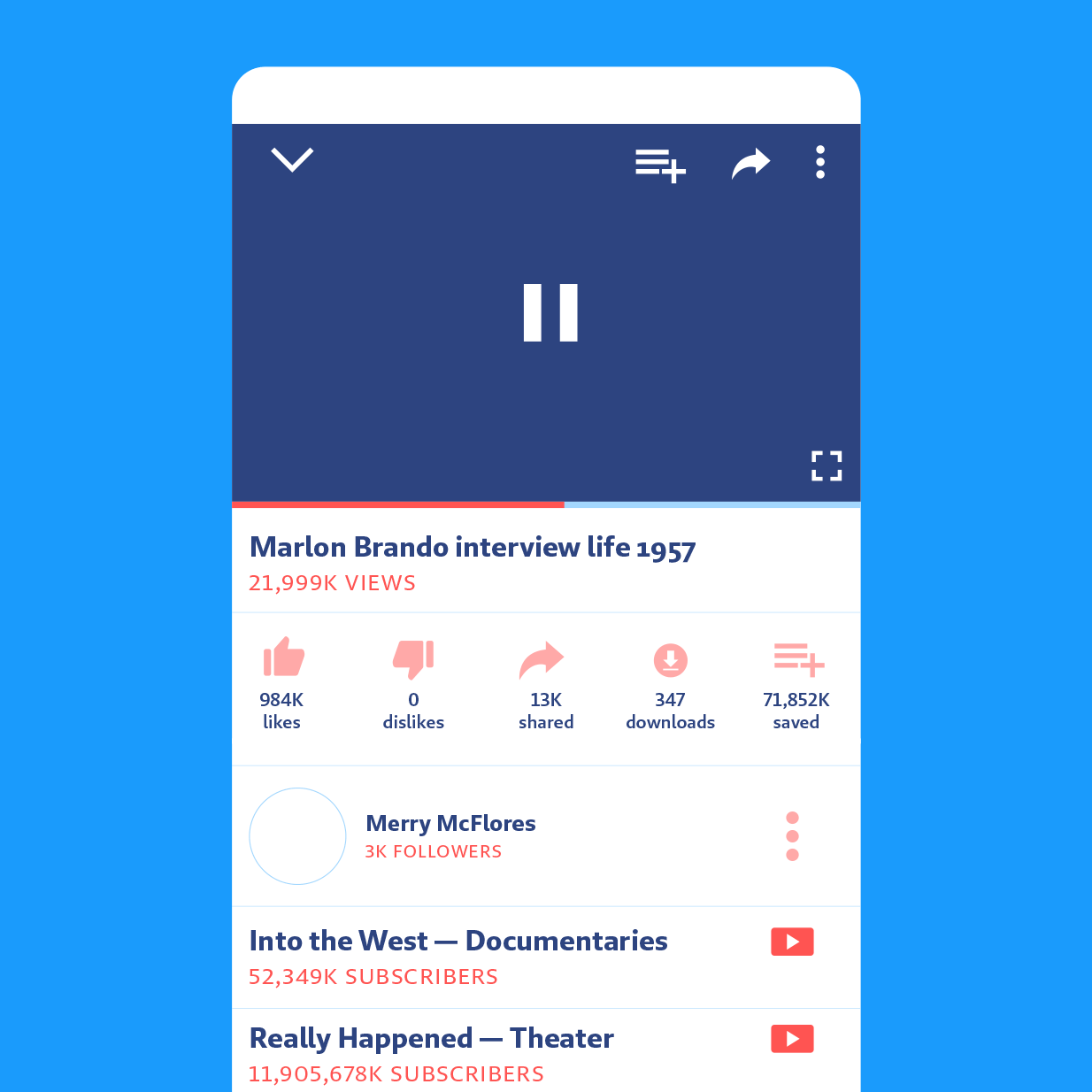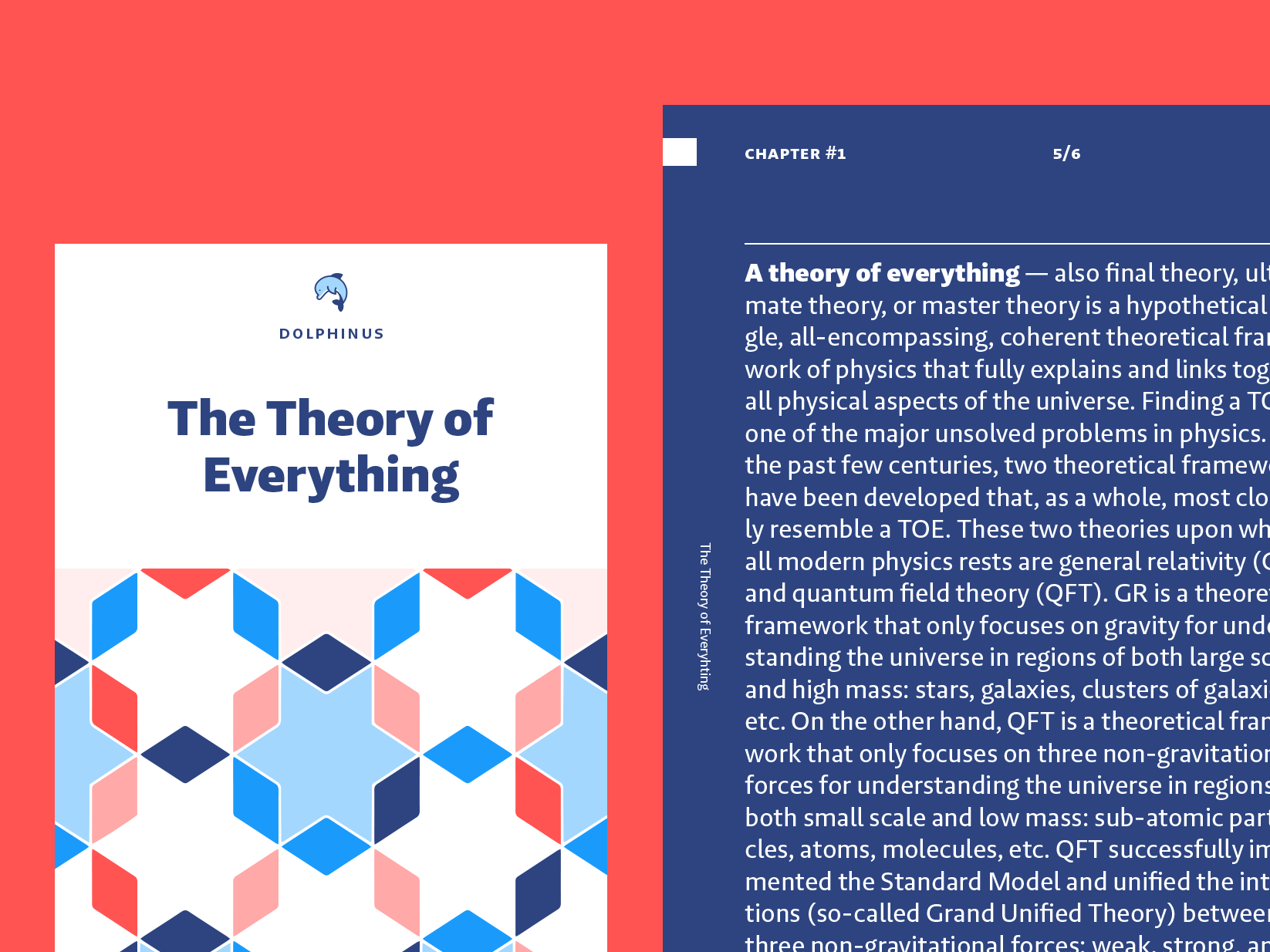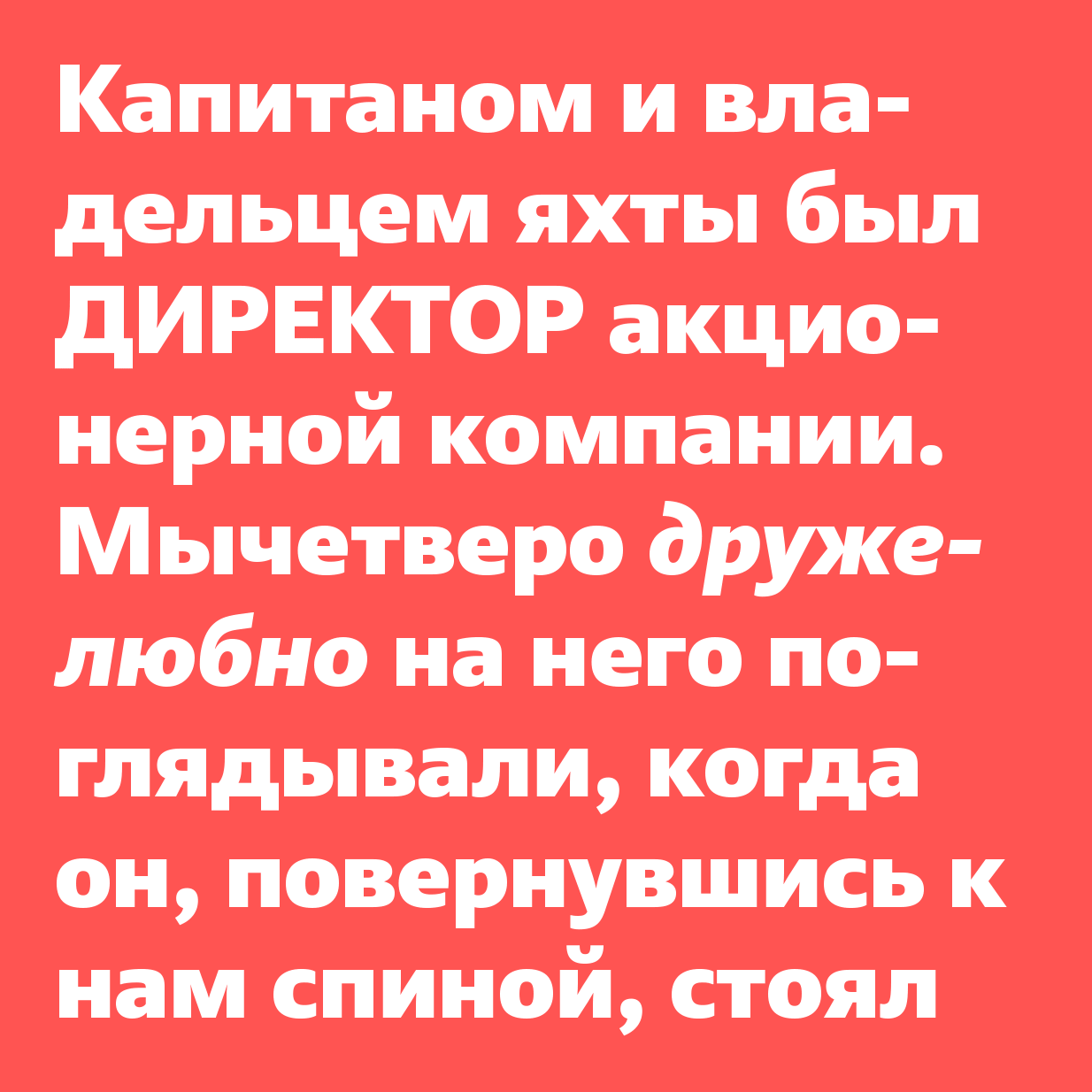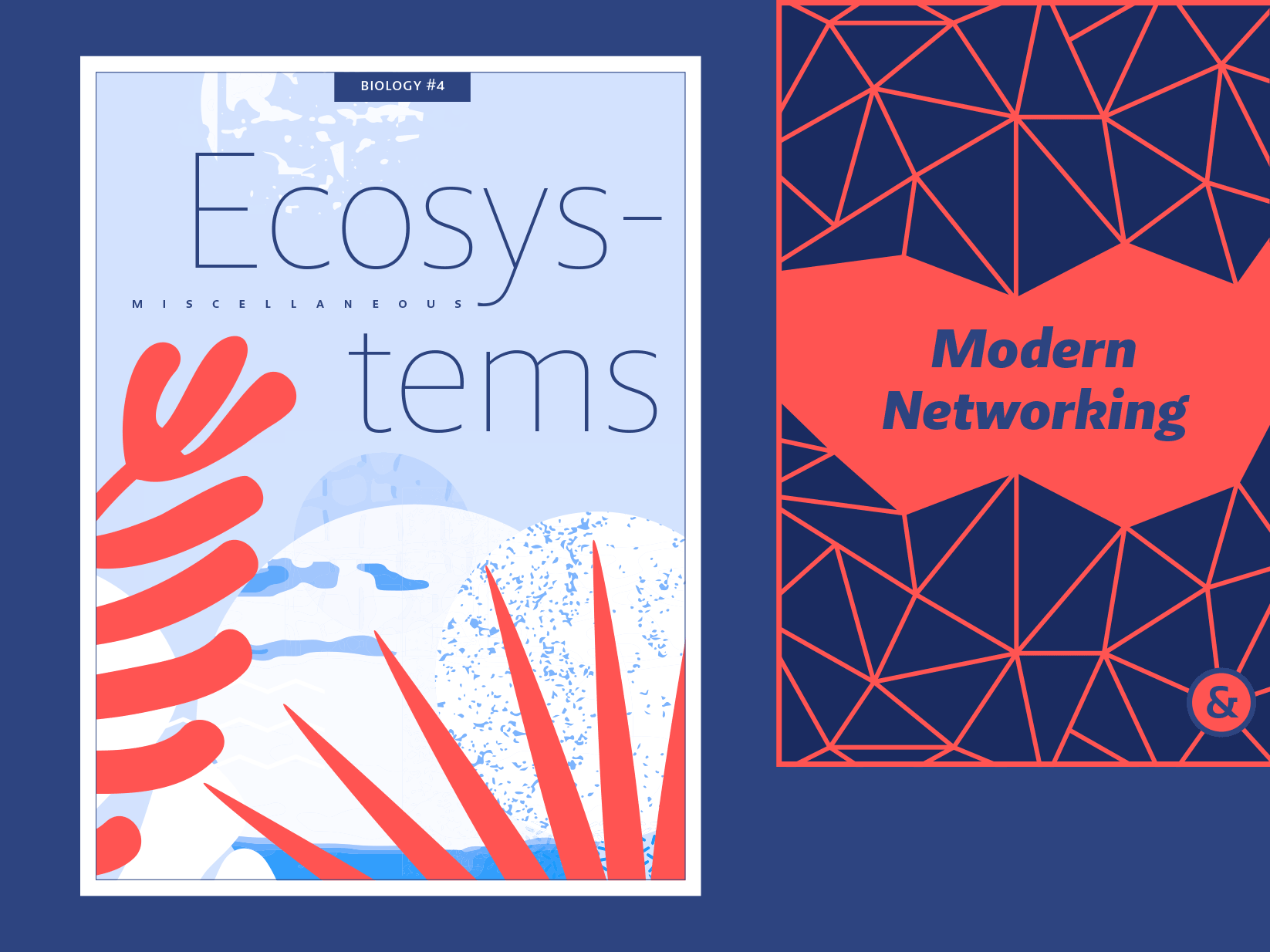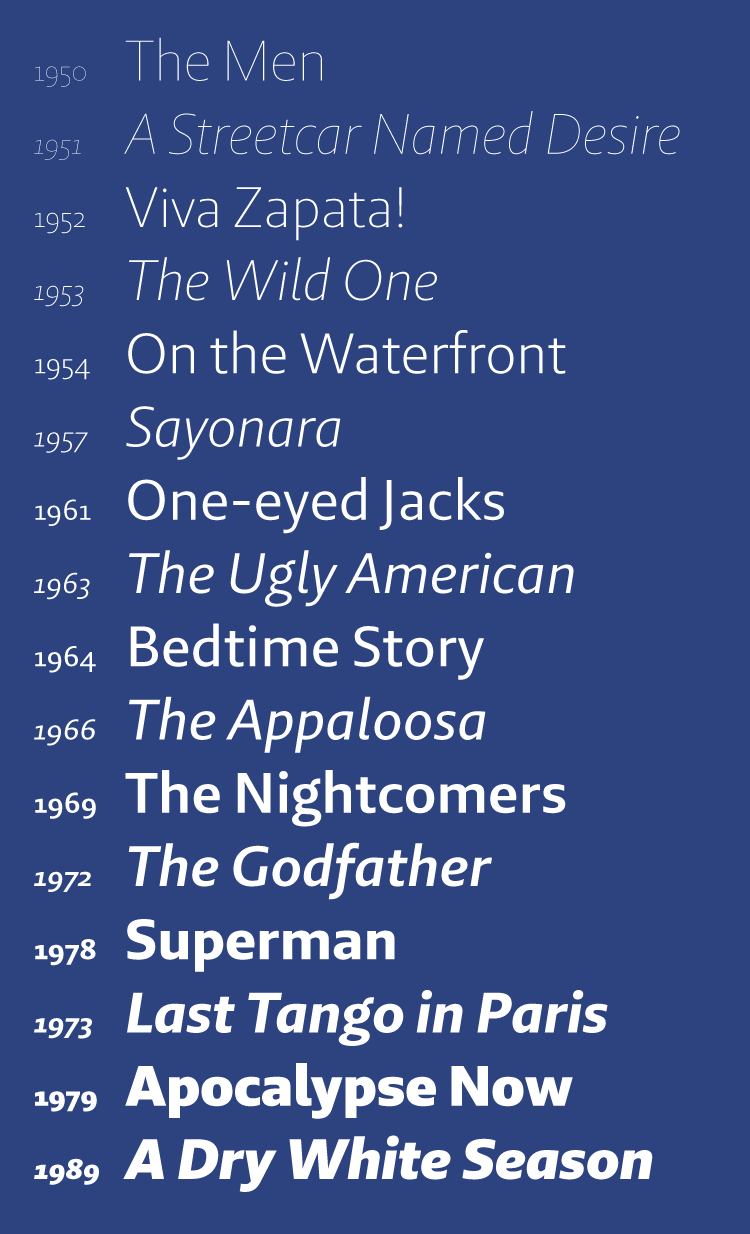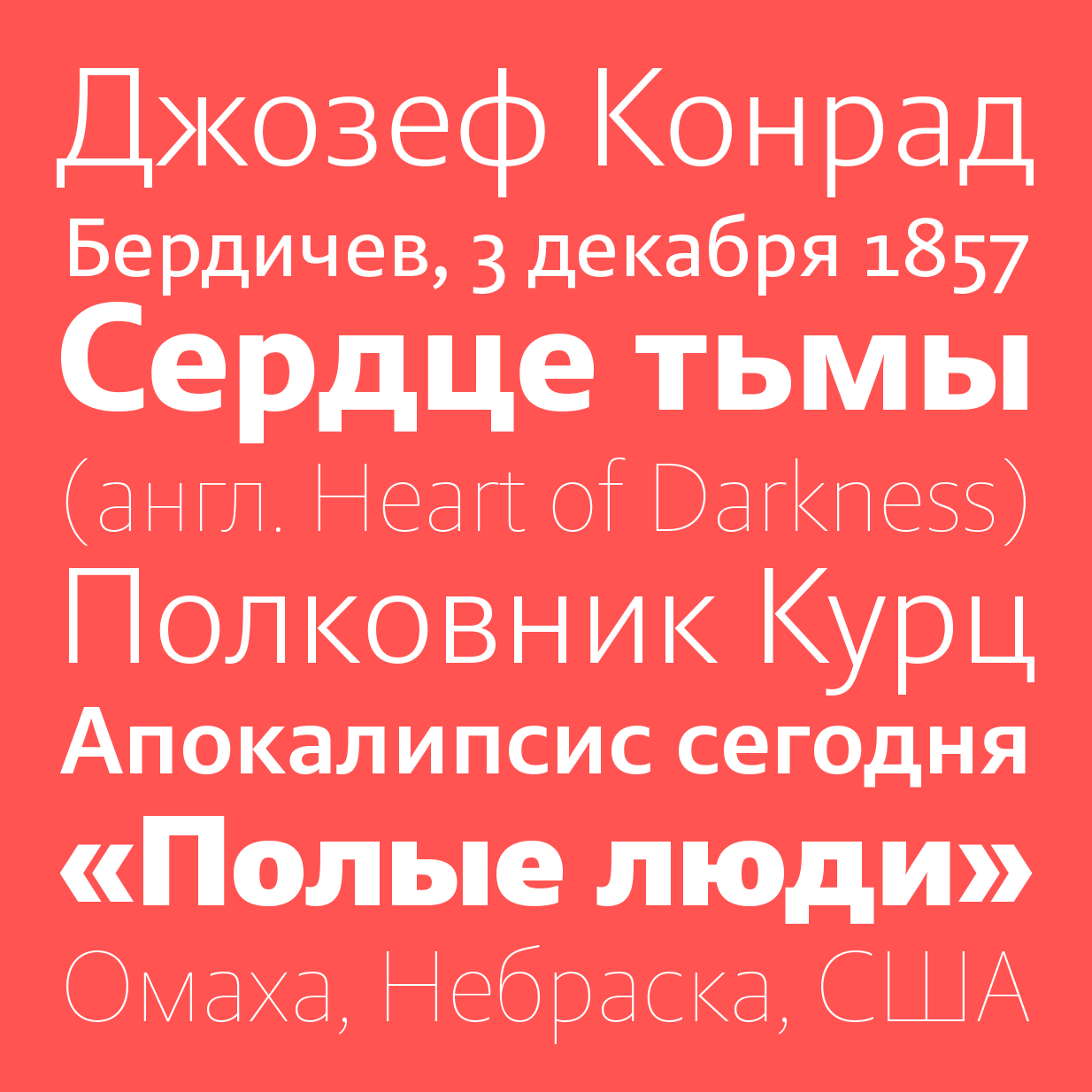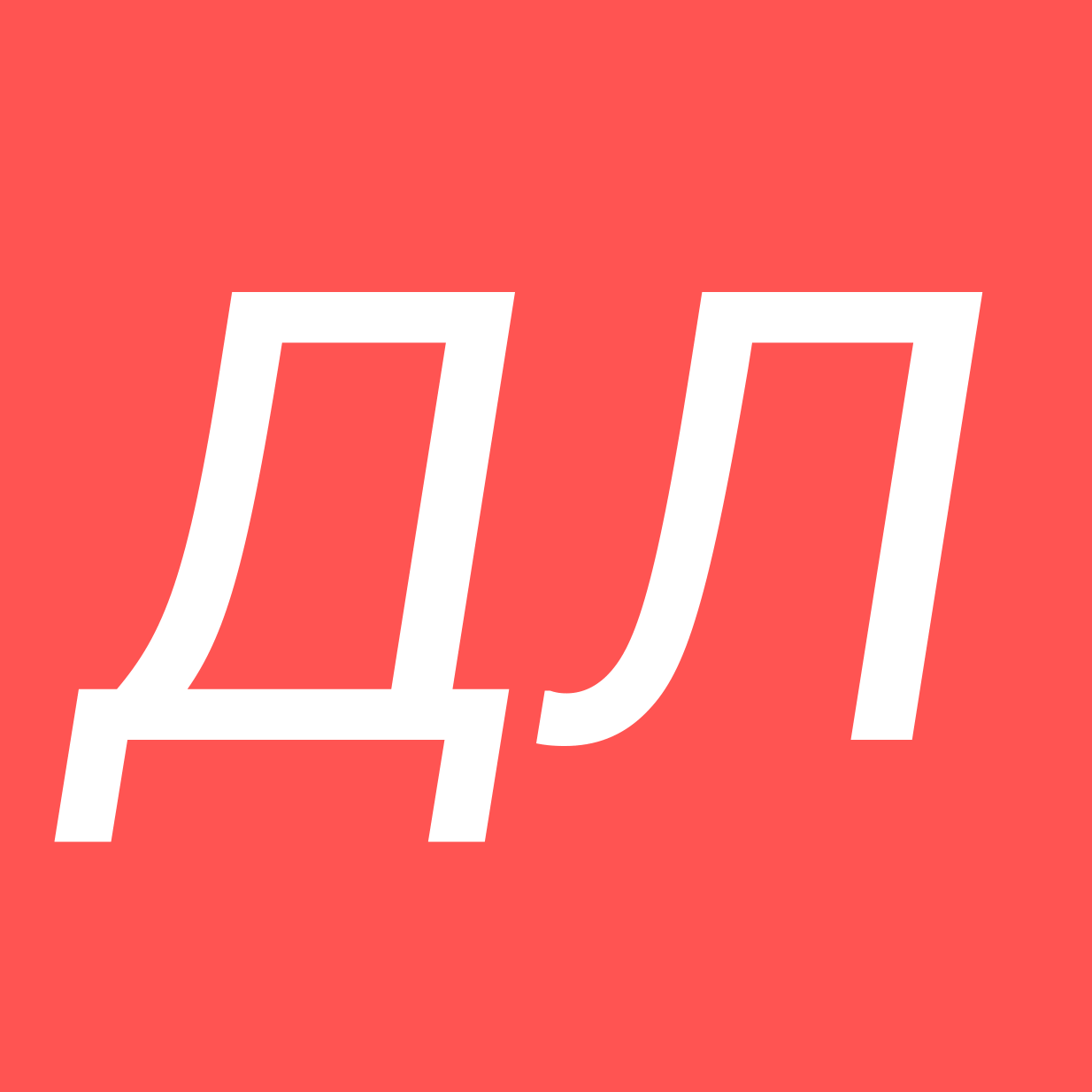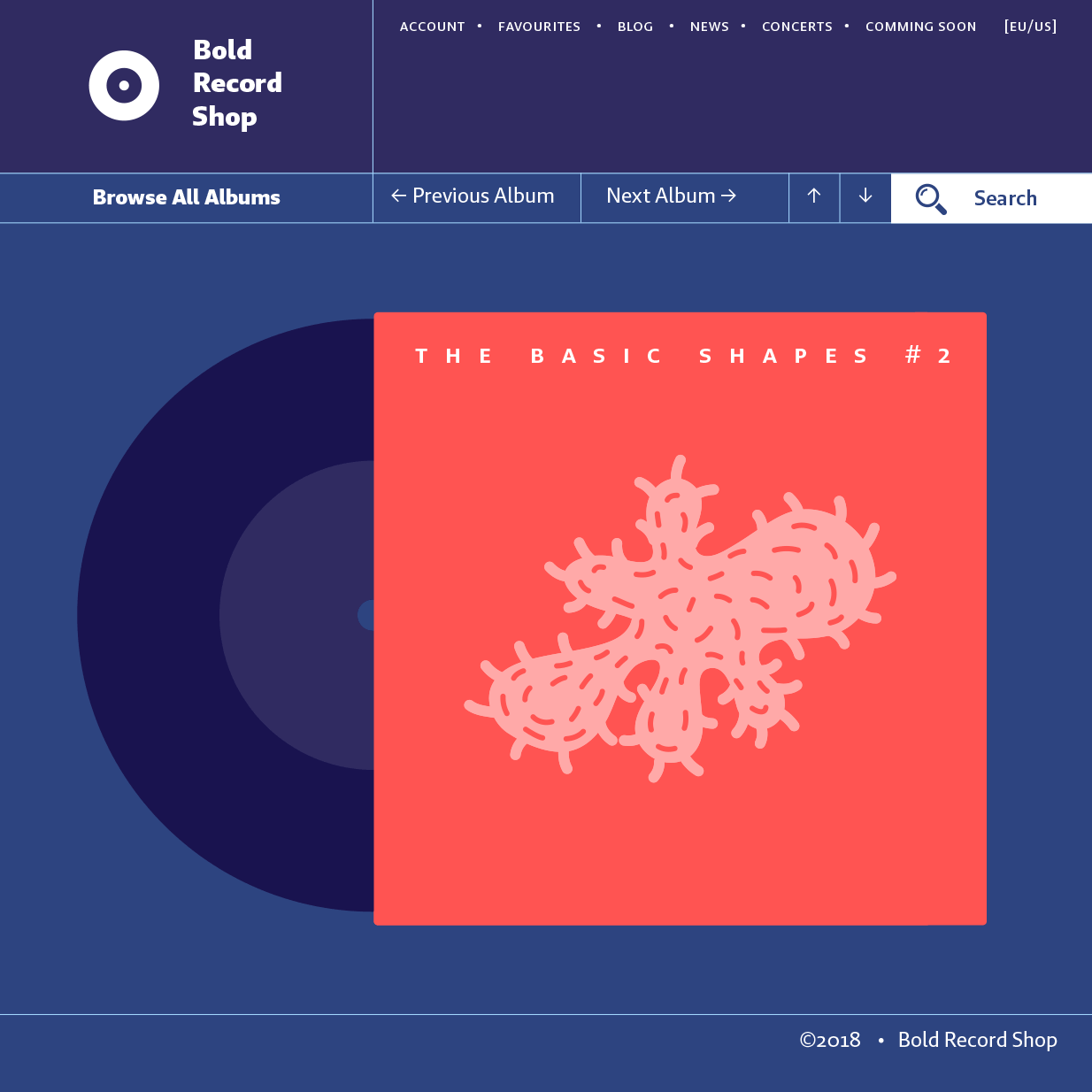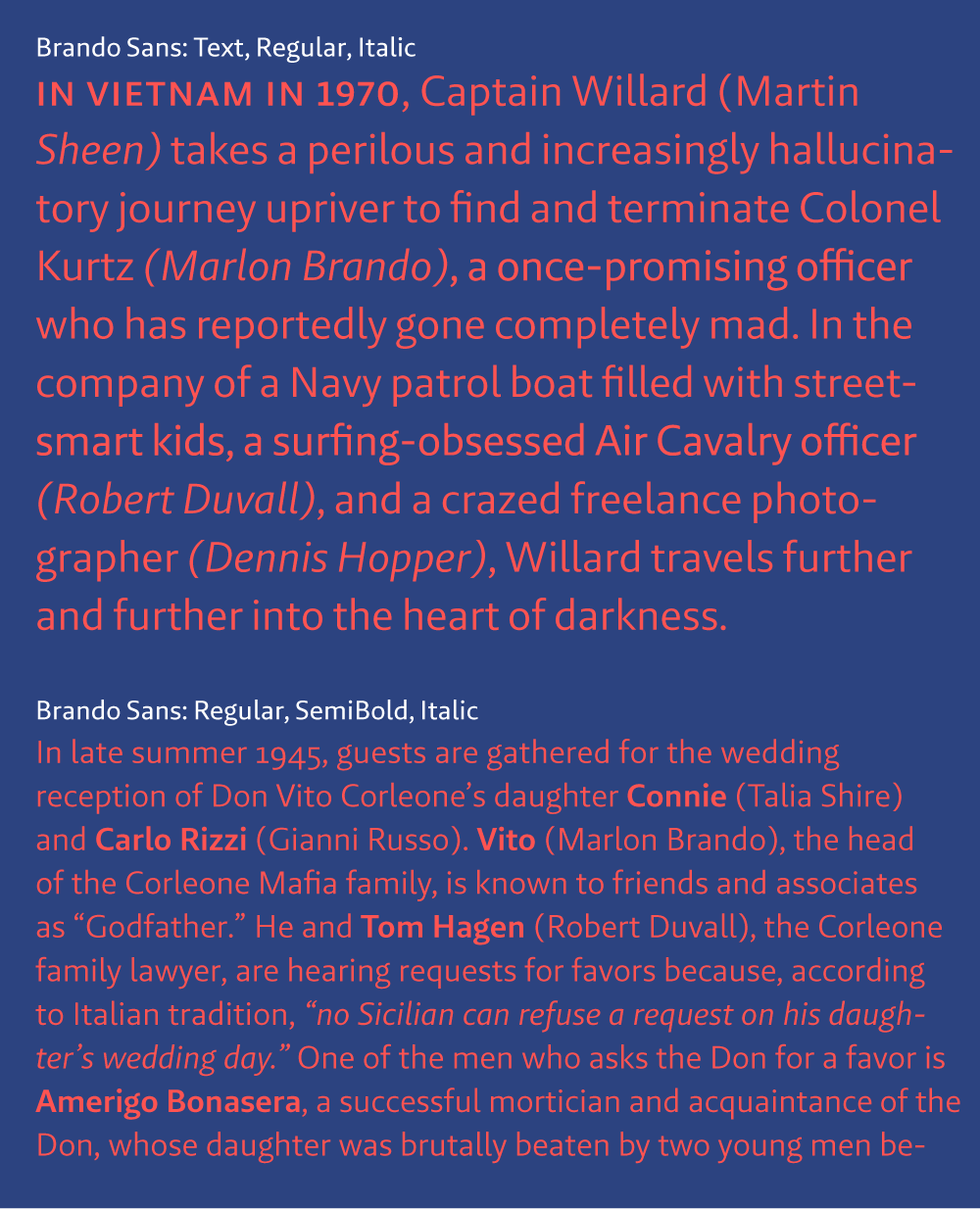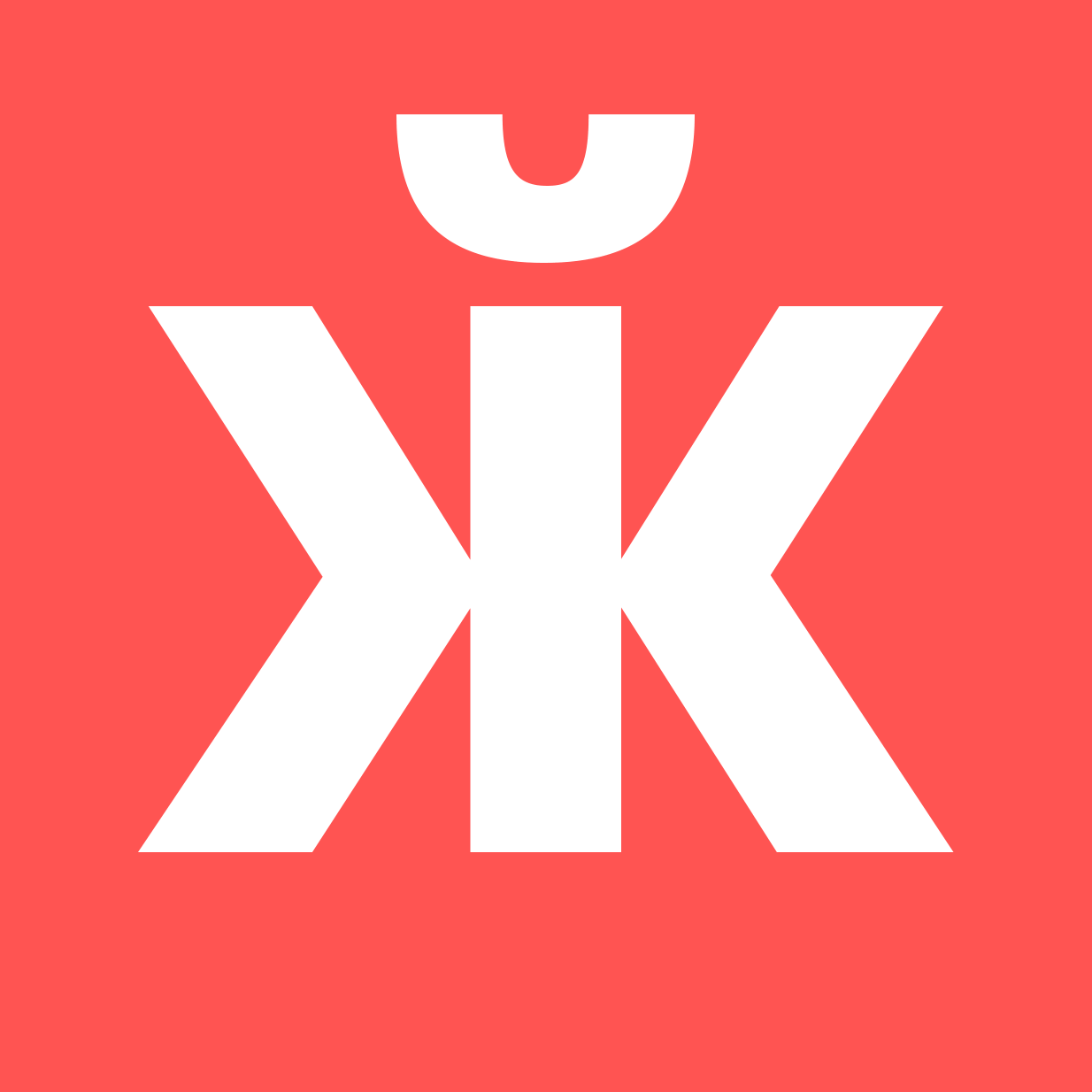
Brando Sans
Brando Sans is the distinct companion to Brando. Like its mate, Brando Sans has contemporary humanist qualities, but which have been simplified with a practicality suited for editorial design, branding, digital experiences, and signage systems. Although simple at first sight, Brando Sans retains the character and charm of its serif counterpart while introducing some unique traits of its own, like the curved ‘l’ or a more symmetrical approach to glyphs like the ‘M’ and ‘W’.
The family is available in eight weights — analogous to Brando from Hairline to Black — making it equipped for large display settings as well as the demands of small body copy or signs. It is geared to complex design work that needs typographic distinction and flexibility.
Brando Sans covers over 140 languages. The comprehensive character set includes small caps, a variety of figure styles, fractions and mathematical symbols. The italics are true italics, adding to the humanist, approachable feel and making Brando Sans a well-rounded typeface with plenty of attitude, but designed to ultimately be useful and functional.
Designer
Mike Abbink
Aleksandra Samuļenkova
2012–2020